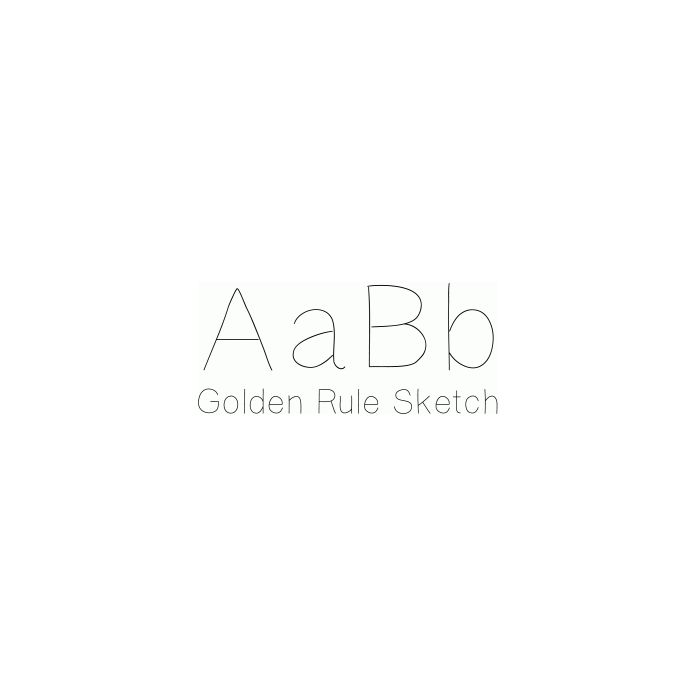
This font was designed to be sketched and not cut out. Look for the cuttable version in my portfolio.
It includes the alphabet, numbers, and basic punctuation.